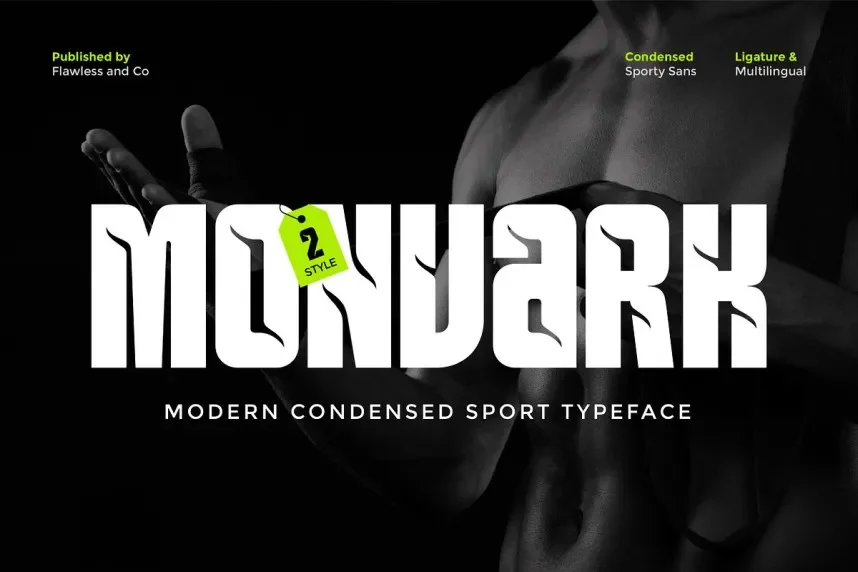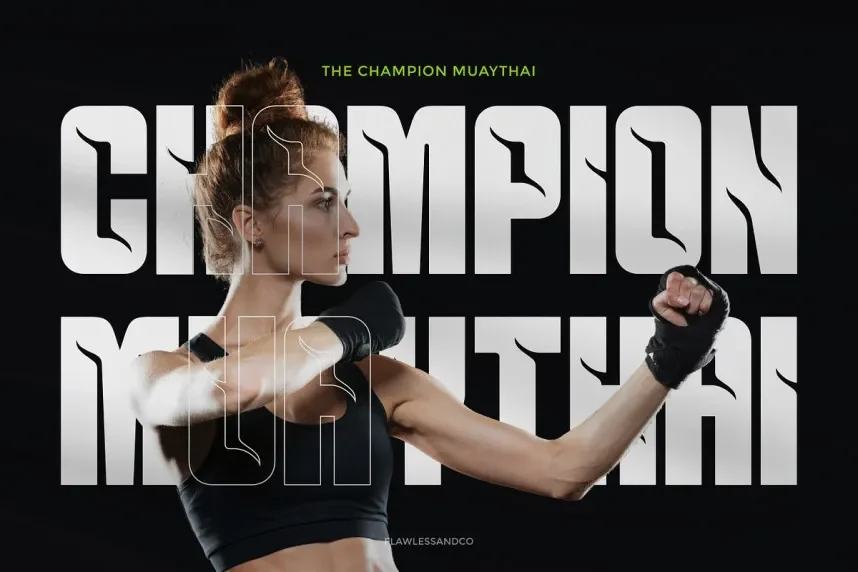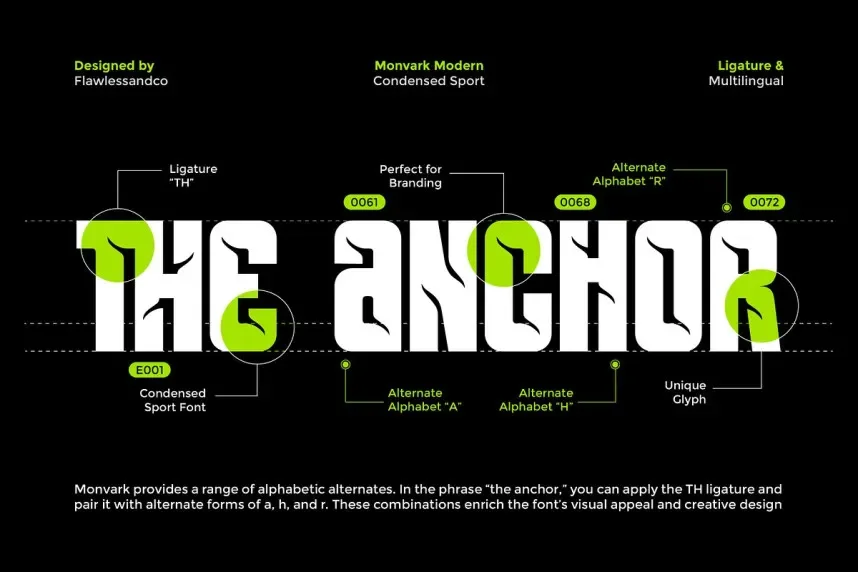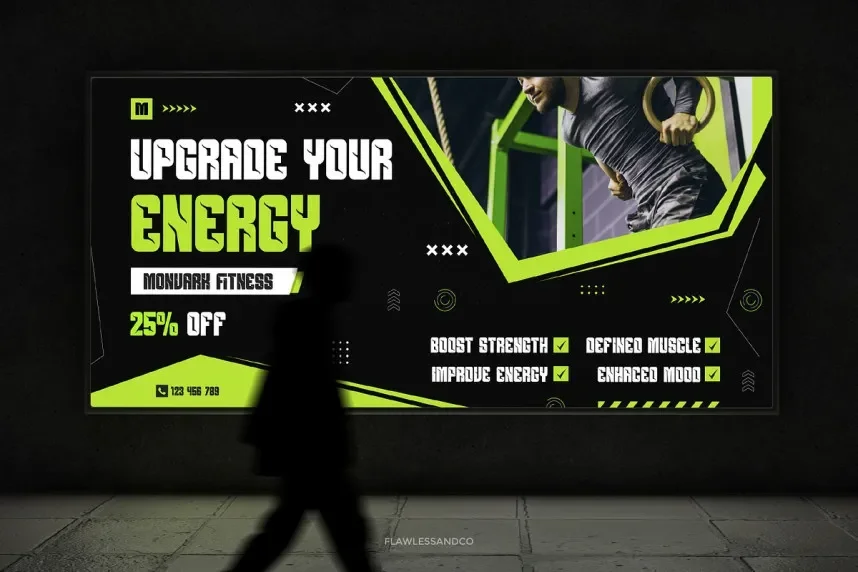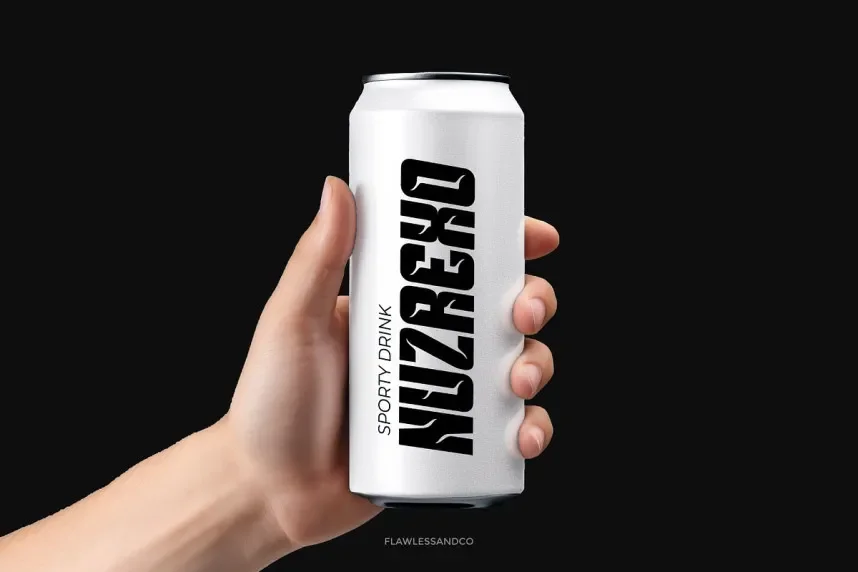
Monvark Font is a modern sans-serif typeface designed to enhance readability and maintain visual consistency across branding and UI projects. Its clean, geometric letterforms reduce visual clutter while providing a contemporary appearance suitable for both digital and print design.
This font features balanced stroke widths, open counters, and uniform spacing. Multiple weights allow flexibility for headings, body text, and promotional materials. Monvark’s minimalistic style ensures clarity while supporting professional and modern design aesthetics.